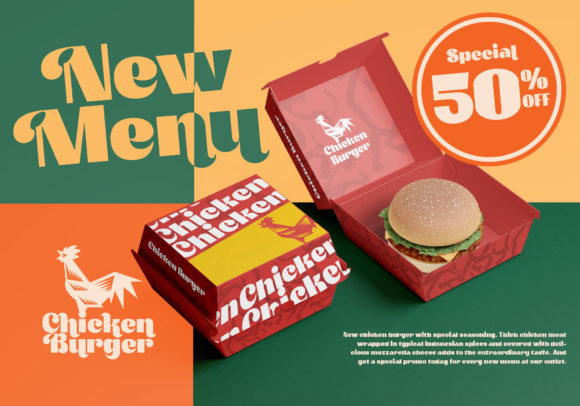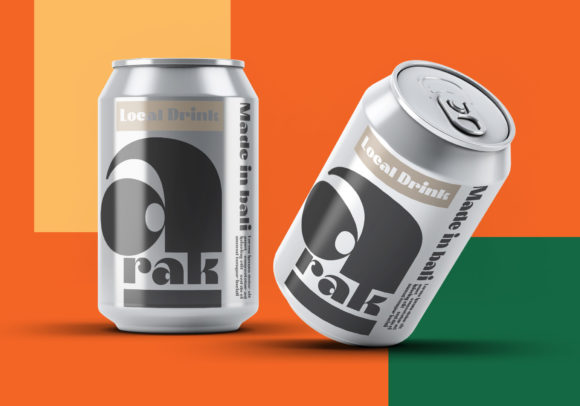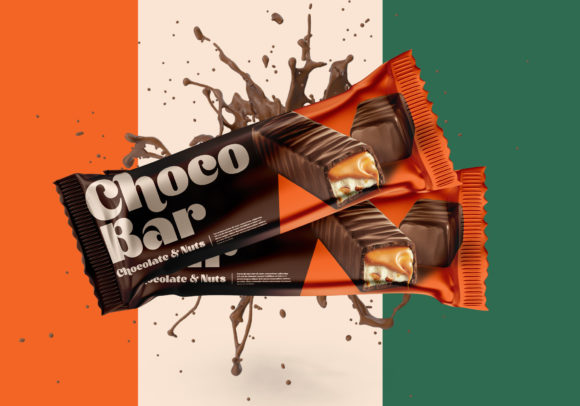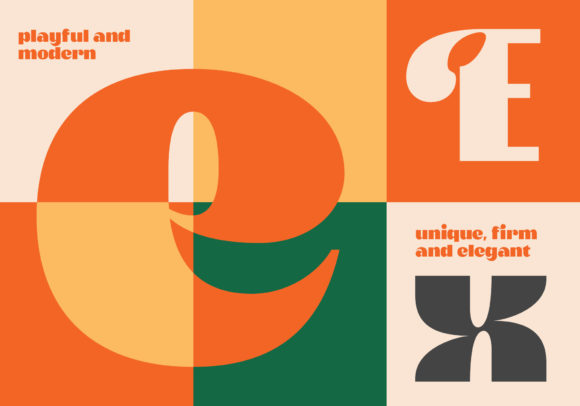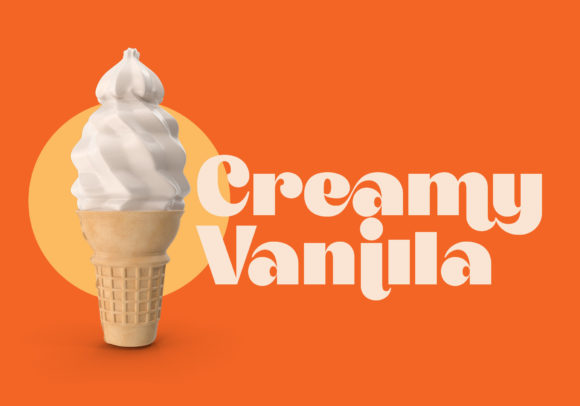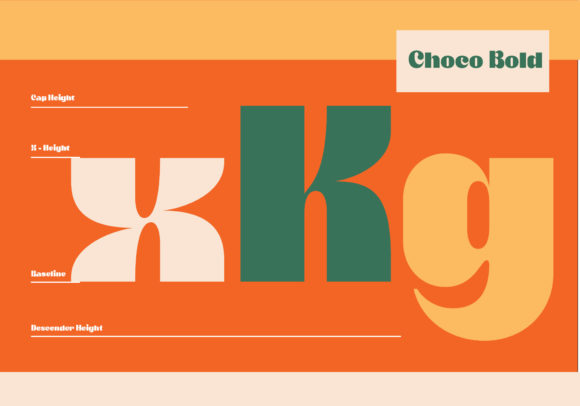
Introducing Choco Bold Font: The Ultimate Retro Display Font
Are you looking for a font that adds a touch of nostalgia and playfulness to your designs? Look no further than Choco Bold Font! This cool and retro-styled display font is perfect for designers and crafters who want to give their projects an old-school vibe. In this article, we’ll dive into the features and benefits of Choco Bold Font, and explore how you can use it to elevate your designs.
What is Choco Bold Font?
Choco Bold Font is a thick lettered font that boasts a unique retro aesthetic. Its bold and chunky letters are reminiscent of classic signage and advertisements from the past, making it an excellent choice for designs that require a vintage or nostalgic feel. Whether you’re working on a logo, poster, or packaging design, Choco Bold Font is sure to make a statement.
Key Features of Choco Bold Font
- Retro Style: Choco Bold Font features a distinctive retro style that’s perfect for designs that require a nostalgic or vintage feel.
- Thick Lettering: The font’s thick lettering makes it highly legible, even at large sizes.
- Display Font: Choco Bold Font is designed specifically for display purposes, making it ideal for headlines, titles, and other attention-grabbing elements.
- Versatile: Despite its bold and chunky appearance, Choco Bold Font is surprisingly versatile and can be used in a variety of design contexts.
Benefits of Using Choco Bold Font
So why choose Choco Bold Font for your designs? Here are just a few benefits of using this amazing font:
- Adds Visual Interest: Choco Bold Font’s unique retro style and thick lettering make it a great way to add visual interest to your designs.
- Evokes Nostalgia: The font’s vintage aesthetic is sure to evoke feelings of nostalgia in your audience, making it perfect for designs that require a retro or vintage feel.
- Highly Legible: Despite its bold appearance, Choco Bold Font is highly legible, even at small sizes.
- Easily Customizable: As a digital font, Choco Bold Font is easily customizable, allowing you to adjust its size, color, and style to suit your design needs.
How to Use Choco Bold Font in Your Designs
So how can you use Choco Bold Font in your designs? Here are a few ideas to get you started:
- Logos and Branding: Choco Bold Font is an excellent choice for logos and branding elements that require a bold and attention-grabbing appearance.
- Posters and Flyers: The font’s retro style and thick lettering make it perfect for posters and flyers that require a vintage or nostalgic feel.
- Packaging Design: Choco Bold Font is a great choice for packaging design, particularly for products that require a retro or vintage aesthetic.
- Social Media Graphics: The font’s bold and chunky appearance makes it perfect for social media graphics, such as Facebook posts, Instagram stories, and Twitter headers.
Tips and Tricks for Getting the Most Out of Choco Bold Font
Here are a few tips and tricks for getting the most out of Choco Bold Font:
- Experiment with Colors: Choco Bold Font looks great in a variety of colors, so don’t be afraid to experiment and find the perfect hue for your design.
- Play with Texture: Adding texture to your design can help give it a more retro or vintage feel, which pairs perfectly with Choco Bold Font.
- Use it as a Statement Piece: Choco Bold Font is a bold and attention-grabbing font, so use it as a statement piece in your design to draw attention to a particular element.
In conclusion, Choco Bold Font is an amazing retro-styled display font that’s perfect for designers and crafters who want to add a touch of nostalgia and playfulness to their designs. With its thick lettering, bold appearance, and versatile design, Choco Bold Font is sure to become a staple in your font collection. So why not give it a try and see how it can elevate your designs?